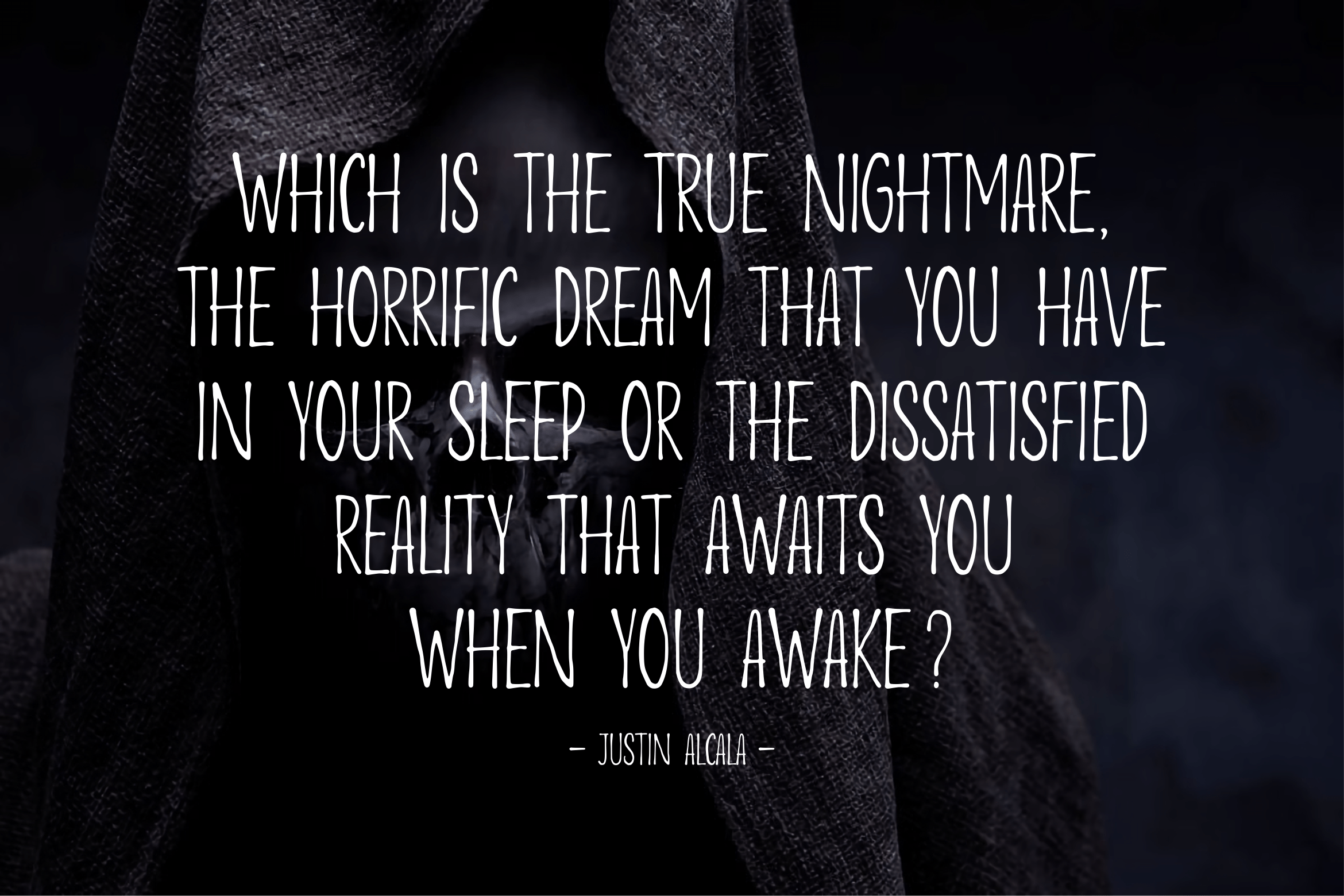
Bloody Silence Font
Bloody Silence Display Font is an all-caps horror display font. Bloody Silence is perfect for product packaging, branding project, magazines, social media, weddings, or just used to express words above the background.